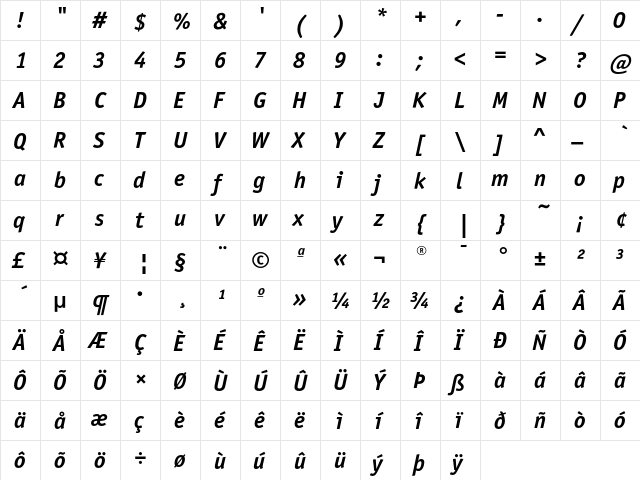
OfficinaSansEF BoldItalic
Design Context for OfficinaSansEF Typeface
OfficinaSansEF is a composed and adaptable typeface that performs quietly and consistently across a wide range of design contexts. The dynamic lean of this cut emphasises speed and emphasis in any layout. The heavy weight commands attention and anchors typographic hierarchies.
Pro Tip: Use OfficinaSansEF for emphasis, pull quotes, and subheadings where its slanted energy can add rhythm to the layout.